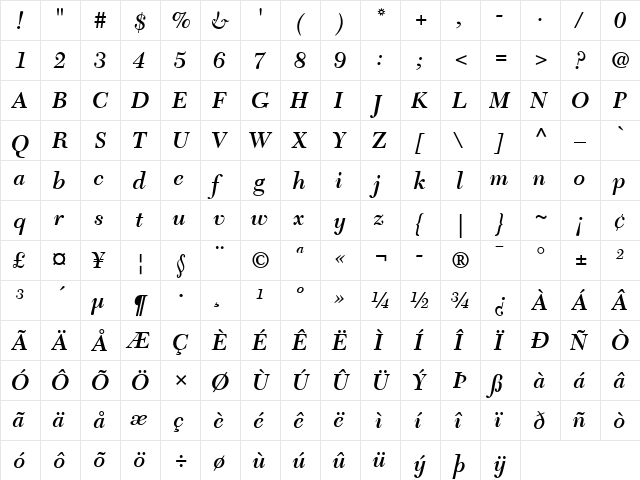
NewCaledonia LT SemiBold Italic Font Preview
Design Context for NewCaledonia LT SemiBold Typeface
NewCaledonia LT SemiBold offers clean, dependable letterforms without strong stylistic allegiance, making it a practical choice for designers who need flexibility. The dynamic lean of this cut emphasises speed and emphasis in any layout. The heavy weight commands attention and anchors typographic hierarchies.
Pro Tip: Try NewCaledonia LT SemiBold for annotation and caption copy alongside an upright companion — the contrast in angle creates a dynamic but ordered typographic system.